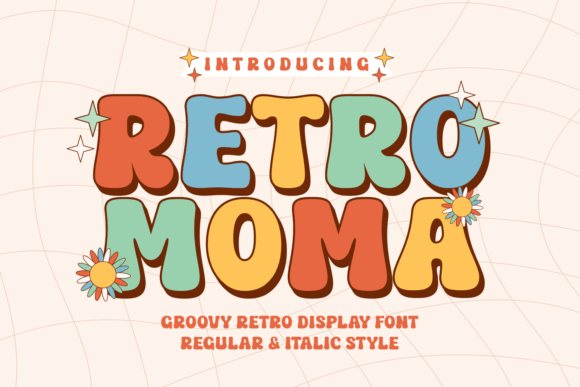
Retro Moma: A Playfully Nostalgic Display Font That Actually Works
Two weeks ago, I opened a fresh brand board for a local ceramicist’s rebrand—hand-thrown mugs, earthy glazes, quiet studio energy—and instinctively reached for something warm, tactile, and lightly irreverent. Not too polished. Not too precious. I typed “Retro Moma” into my font menu and dropped it onto the logo draft. Instantly, the mood shifted—not in a gimmicky way, but like flipping on a soft lamp in a sunlit workshop. That’s the first thing worth saying: Retro Moma isn’t just retro-themed; it’s retro-felt. It carries weight, rhythm, and a subtle wink.
What It Looks Like When You Really Use It
Retro Moma is a display font with generous letterforms, slightly uneven baselines, and gentle contrast between thick and thin strokes—think mid-century signage meets hand-painted diner menus. The curves are friendly but not cutesy; the terminals have just enough flair without veering into script territory. There’s no forced “vintage” distressing or faux-ink-bleed effects. Instead, it leans into confident, clean nostalgia—like a well-loved cookbook cover from 1967, not a Photoshop filter slapped over Helvetica.
I tested it across six real touchpoints: the ceramicist’s logo lockup, her product label (a small 28mm x 42mm sticker), business card front, Instagram story banner, website hero headline, and a limited-run poster for her seasonal workshop series. On the label, it held up surprisingly well at 8pt when set tightly—but only as a single-word brand name (“Clay & Co.”), not body copy. On the poster? Absolutely magnetic. At 72pt, the letter spacing opened up naturally, and the slight asymmetry gave it breathing room and character.
Where It Shines (and Where It Doesn’t Pretend To)
Retro Moma is built for impact, not endurance. It’s a display font through and through—ideal for logos, headlines, packaging accents, social media banners, and editorial pull quotes. It’s not meant for paragraphs, captions under product photos, or mobile navigation menus. Trying to use it for body text would be like serving espresso in a soup bowl: technically possible, but missing the point.
In logo design, it adds instant warmth and approachability—especially for makers, cafés, indie bookshops, or wellness brands that want personality without pretension. Paired with a grounded sans serif like Inter or Work Sans, it creates smart contrast: Retro Moma brings voice, the sans brings clarity. For a handmade skincare line, I paired it with a delicate serif (Cormorant Garamond) for ingredient lists—Retro Moma handled the brand name and tagline beautifully, while the serif anchored the detail work.
It doesn’t include multiple weights—just one robust, carefully tuned style—so don’t expect light or bold variants. What it does offer are thoughtful alternates: a few swash capitals and contextual ligatures that activate automatically in OpenType-aware apps. Nothing excessive, just enough to keep repetition feeling intentional, not mechanical.
Real Talk About Readability and Context
Yes, it’s legible—but context is everything. At 32pt on a café window decal? Clear, charming, memorable. At 10pt on a receipt or tiny QR code label? Skip it. I tested it on a matte-finish business card—printed via a local shop—and the ink spread just enough to soften the edges, which actually enhanced the retro vibe. But on glossy stock or fine web rendering, those same details pop with sharper charm.
One honest note: Retro Moma isn’t multilingual out of the box. It covers basic Latin characters (including accented letters common in French, Spanish, and German), but no Cyrillic, Greek, or extended diacritics. If your project serves a broad international audience—or includes frequent foreign-language phrases—check the glyph set before committing.
Practical Tips Before You Commit
Always test Retro Moma in your actual file format and output medium. Drop it into your InDesign layout *before* finalizing color palettes—its warmth can shift how adjacent tones read. Try exporting a PNG of your logo at three sizes: desktop hero, Instagram profile, and printed business card. Does the rhythm hold? Does the spacing collapse or feel awkward at smaller scales?
And here’s what I tell every designer who asks: Don’t lead with Retro Moma. Let your concept breathe first. Sketch the idea in a neutral typeface. Then bring Retro Moma in—not as decoration, but as reinforcement. When it lands right, it doesn’t shout “look at me!” It whispers, “you already know this feeling.” That’s rare. That’s useful.